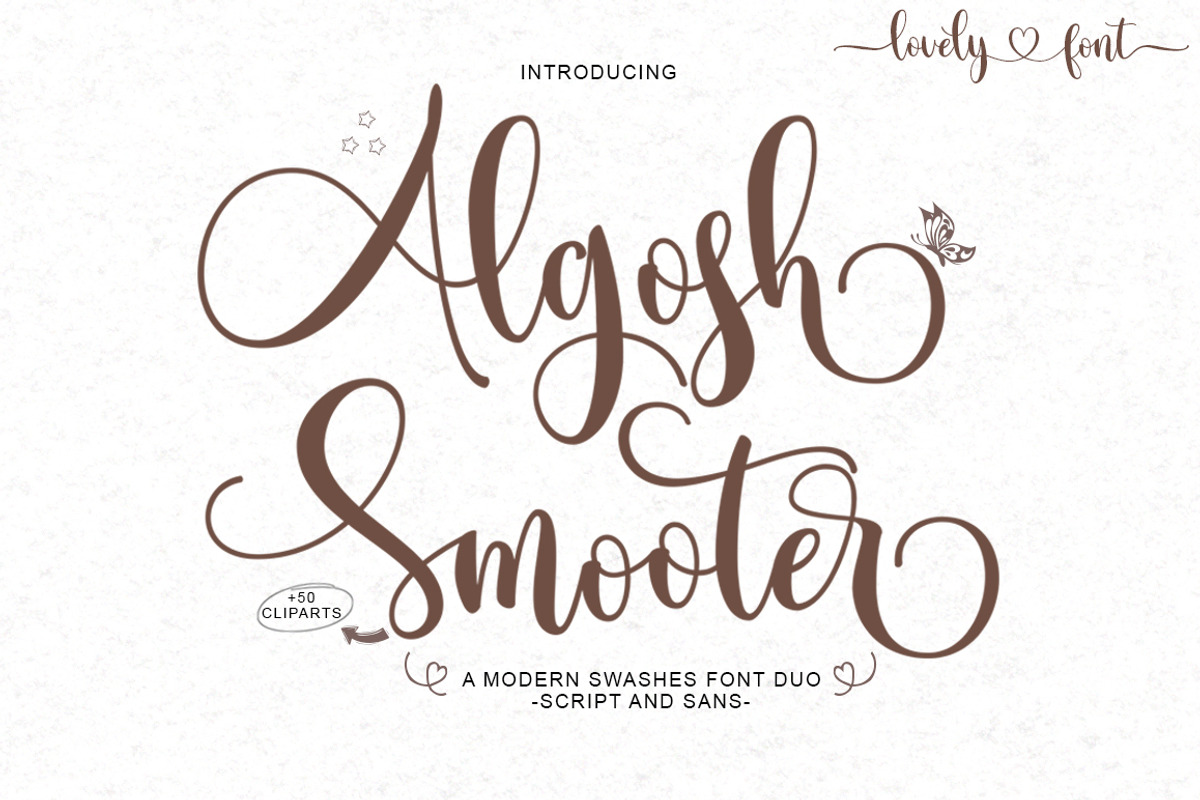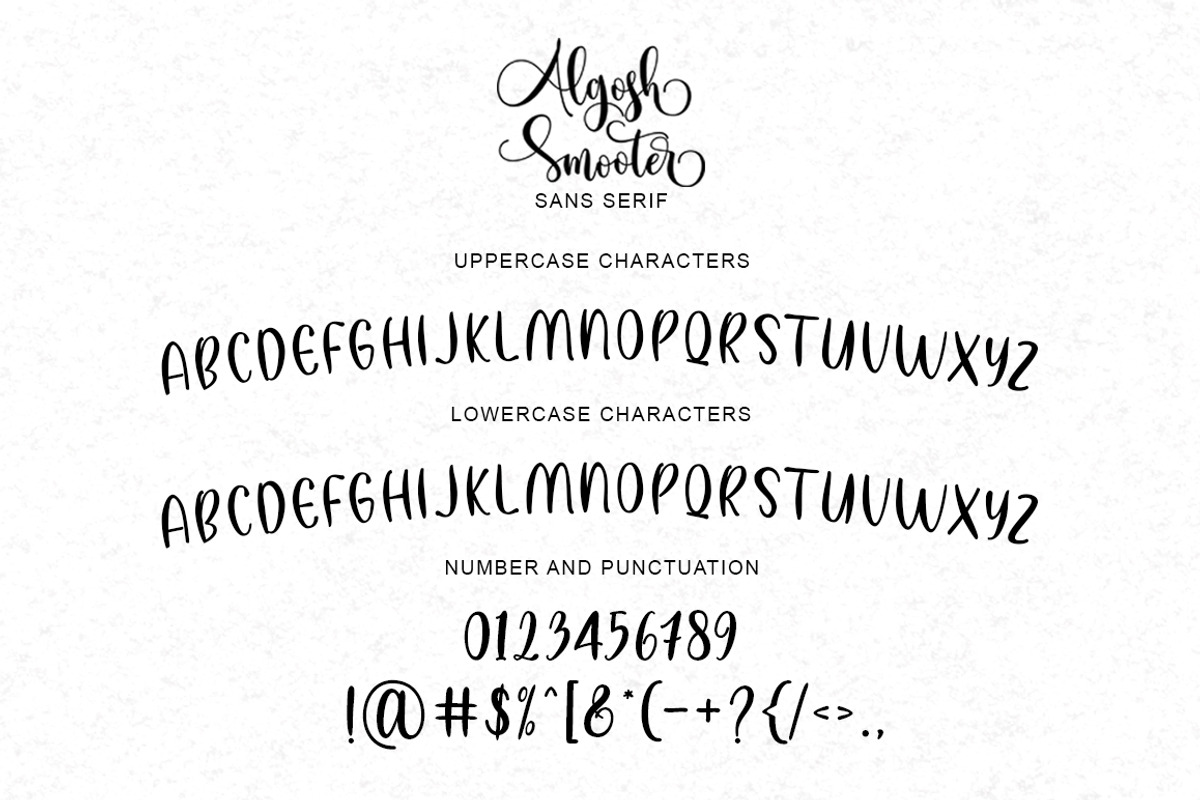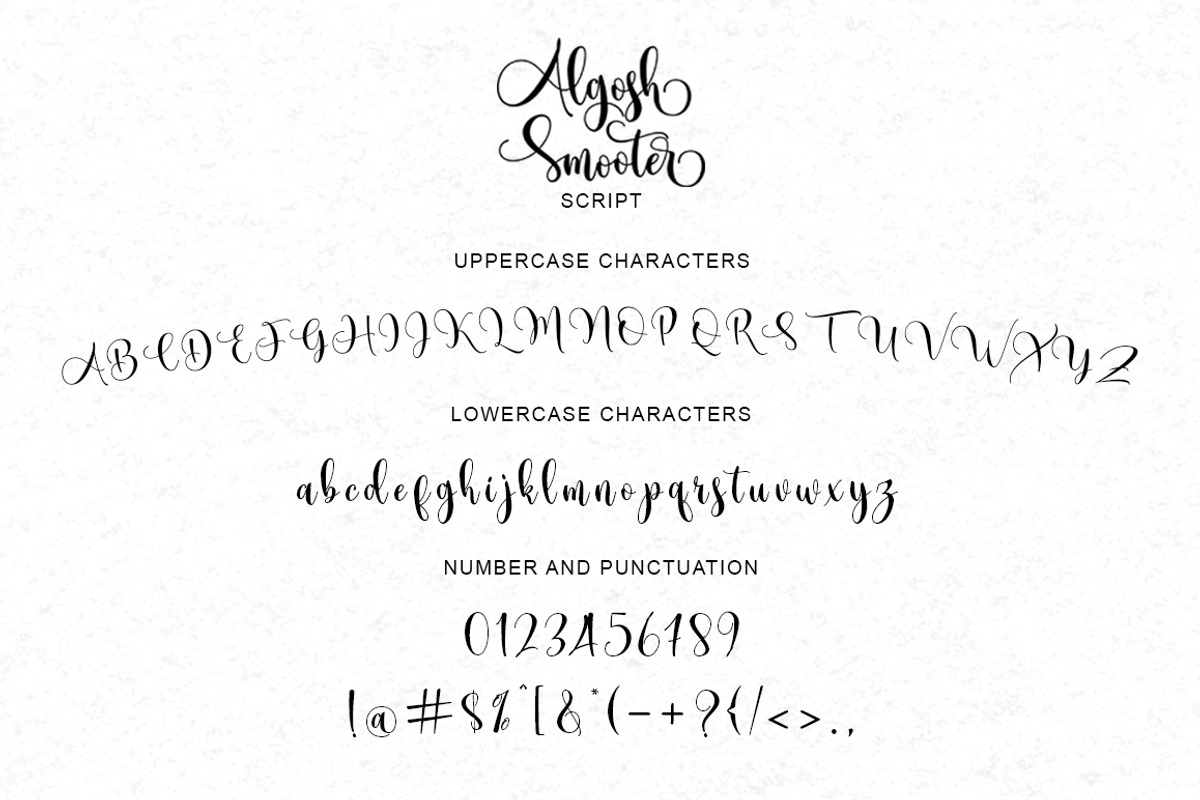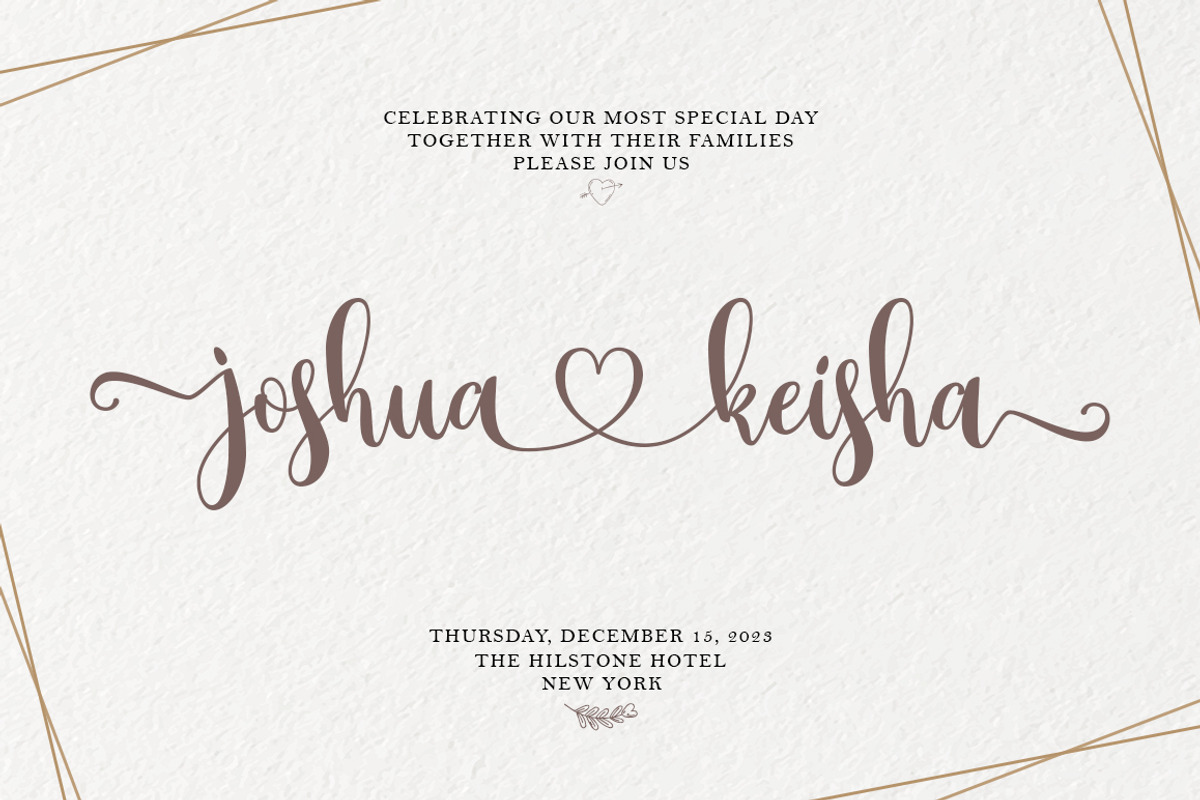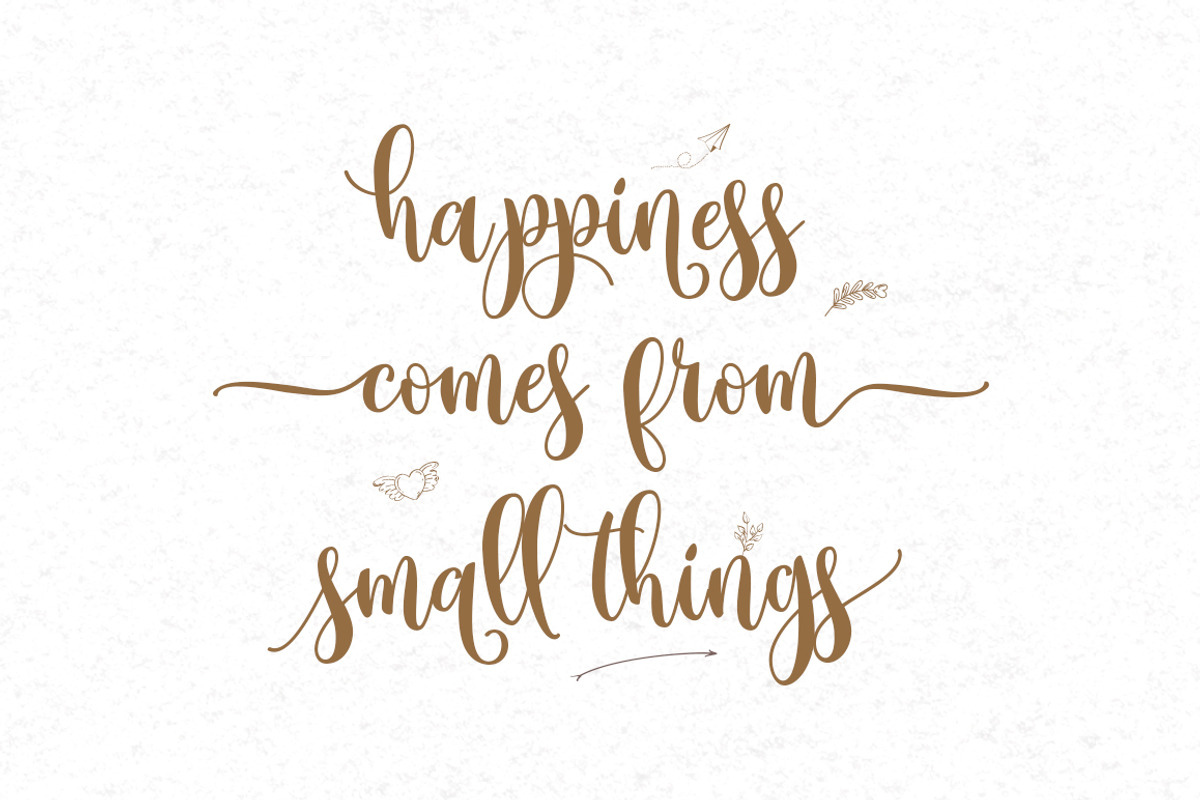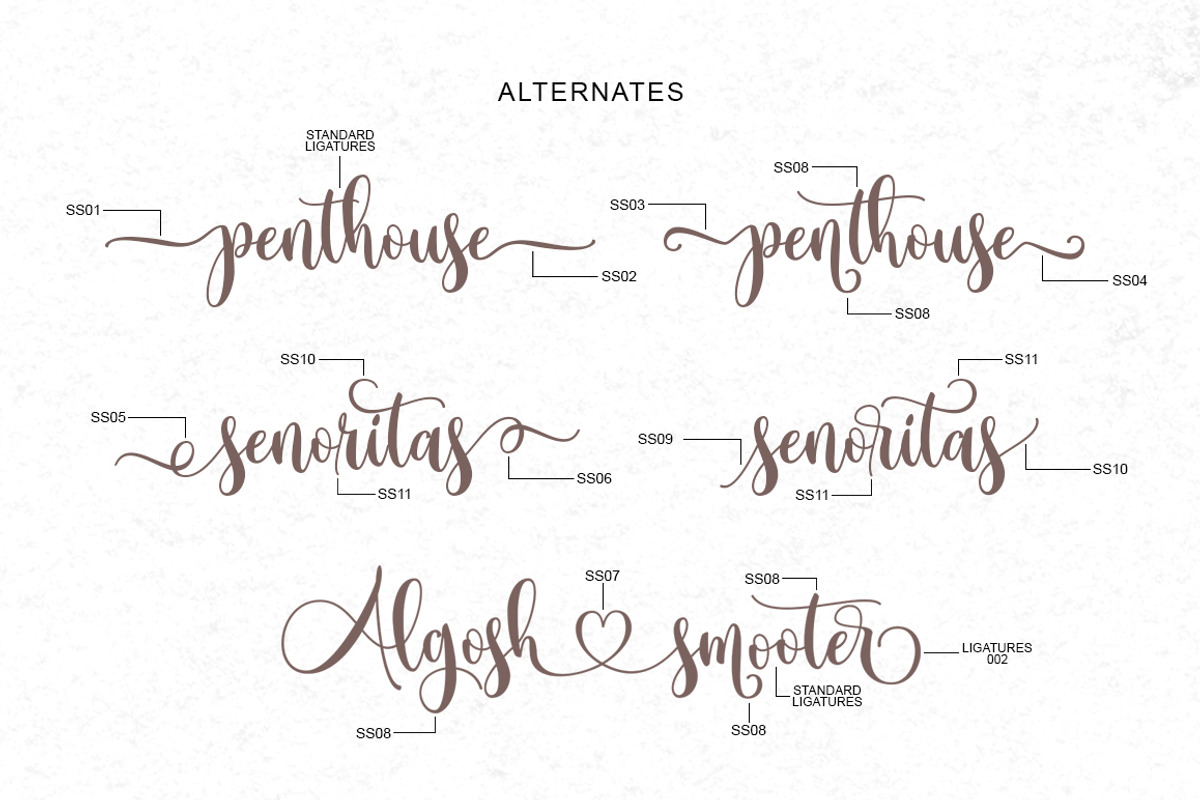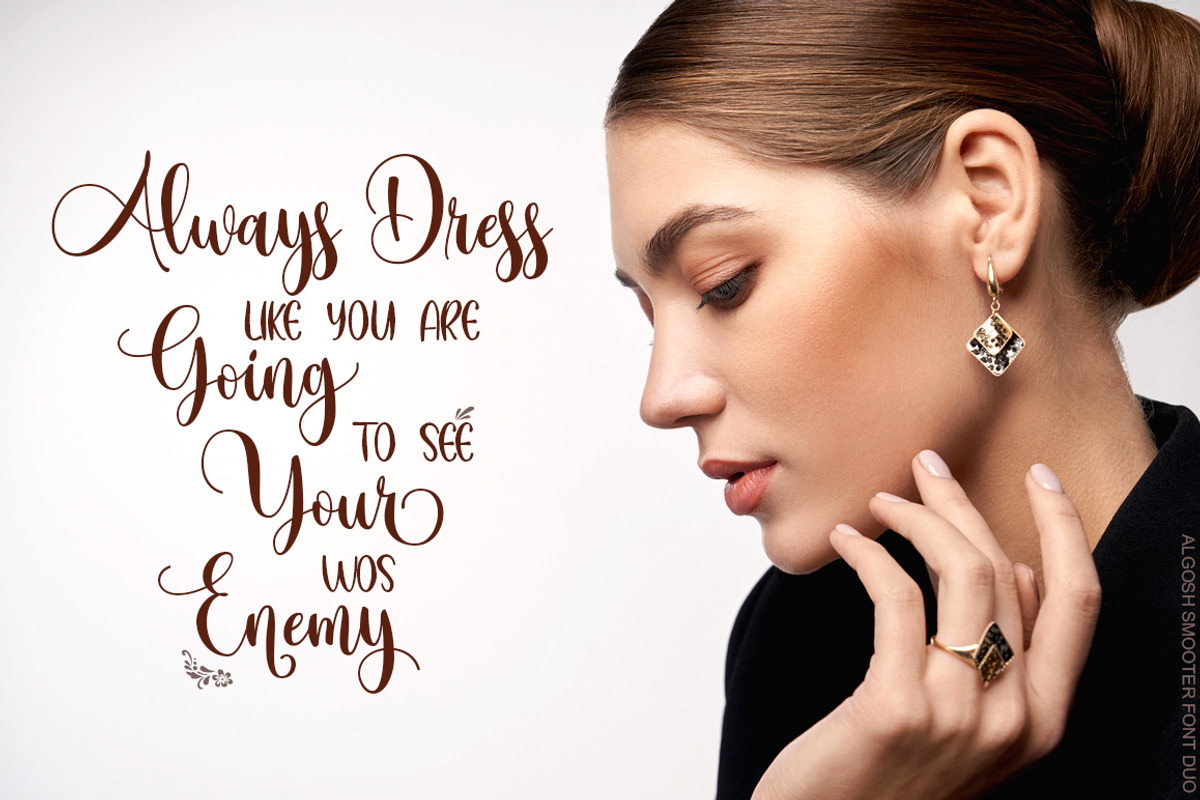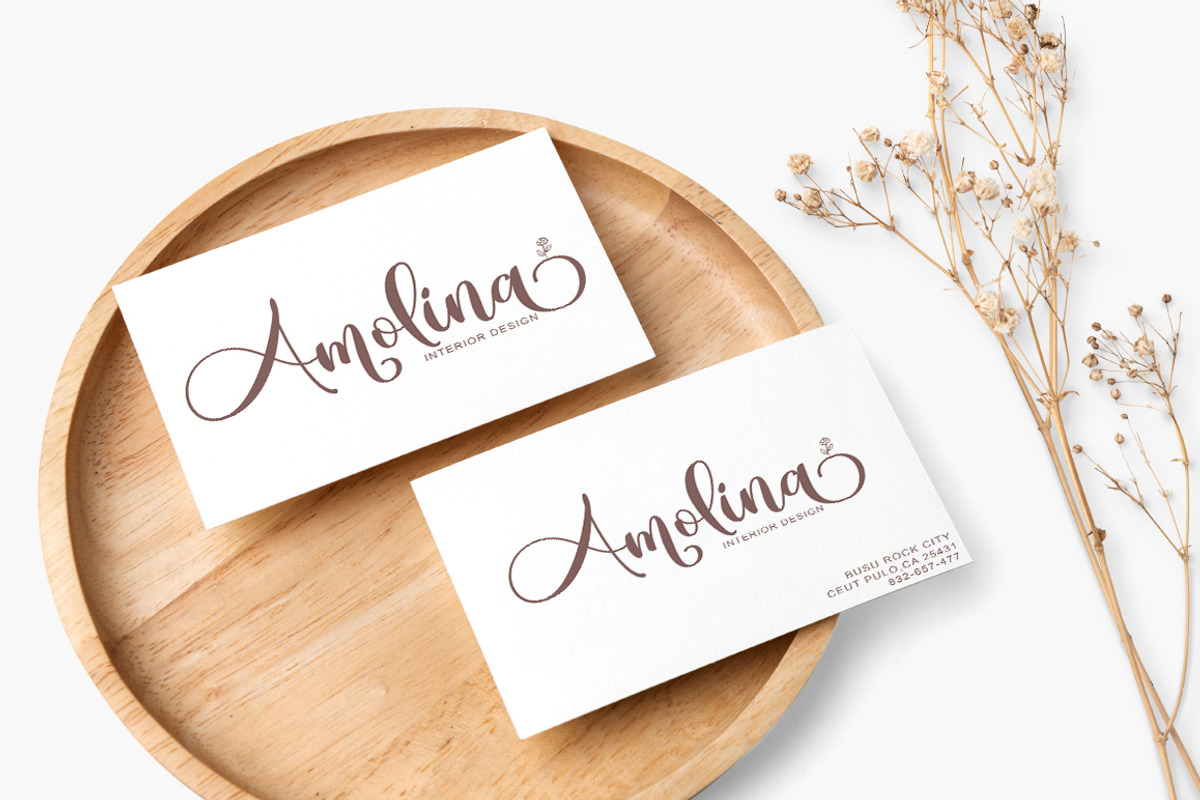
Algosh Smooter
Algosh Smoother is a font family which contains a combination of 2 complementary fonts and one additional font which contains wedding illustrations and others. Algosh Smoother has many alternative characters for each letter, It includes over 400 alternative glyphs that you can use. Algosh Smoother also has lots of clipart. You can use all lowercase letters, uppercase letters, and numbers to access them all clipart in font format. This font is very suitable for those of you who want to create t-shirt designs, invitation card designs, logos and so on.